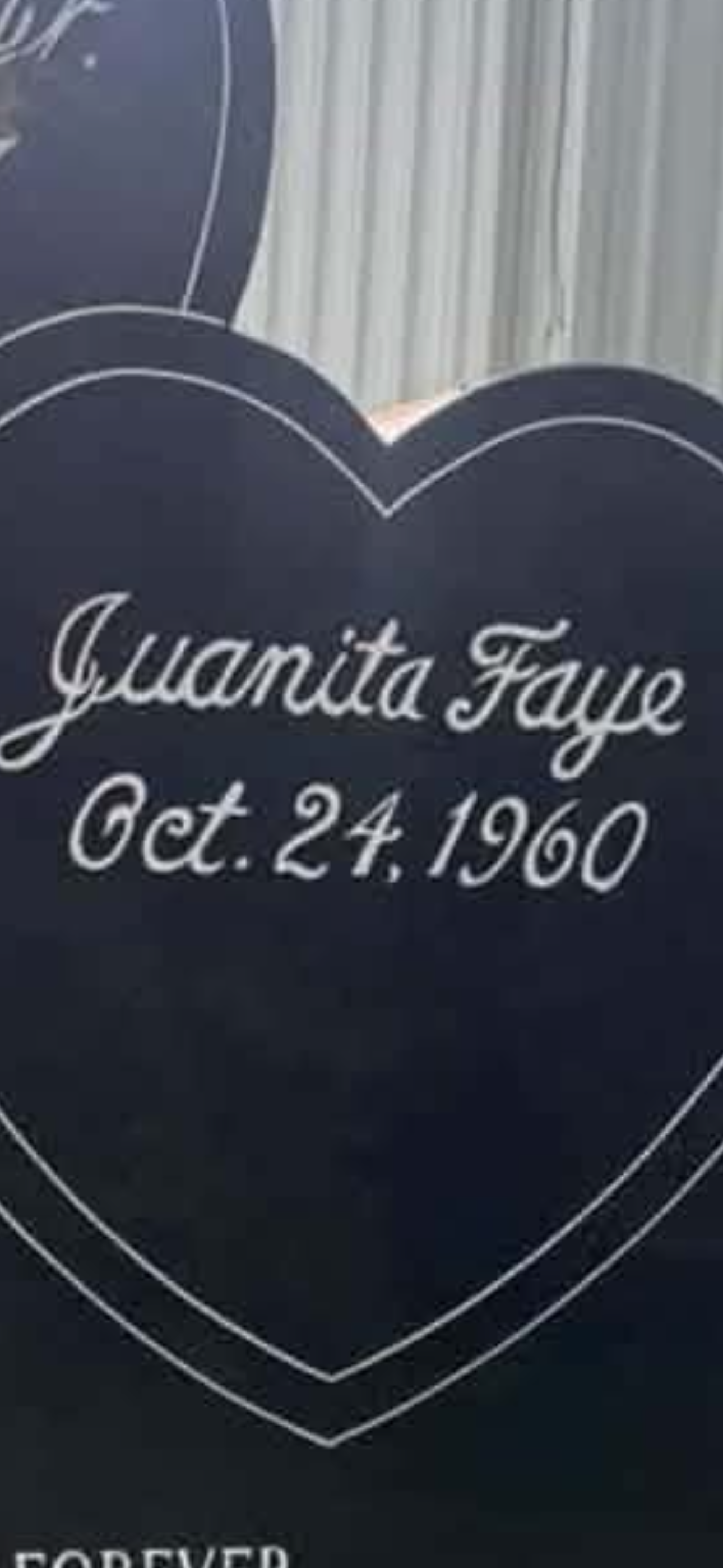
Here’s a strange one for my area! Any ID?
Ugly
Ooof, unfortunately not. The thee ‘a’s all look quite a bit different from one another, so this is likely hand drawn lettering.